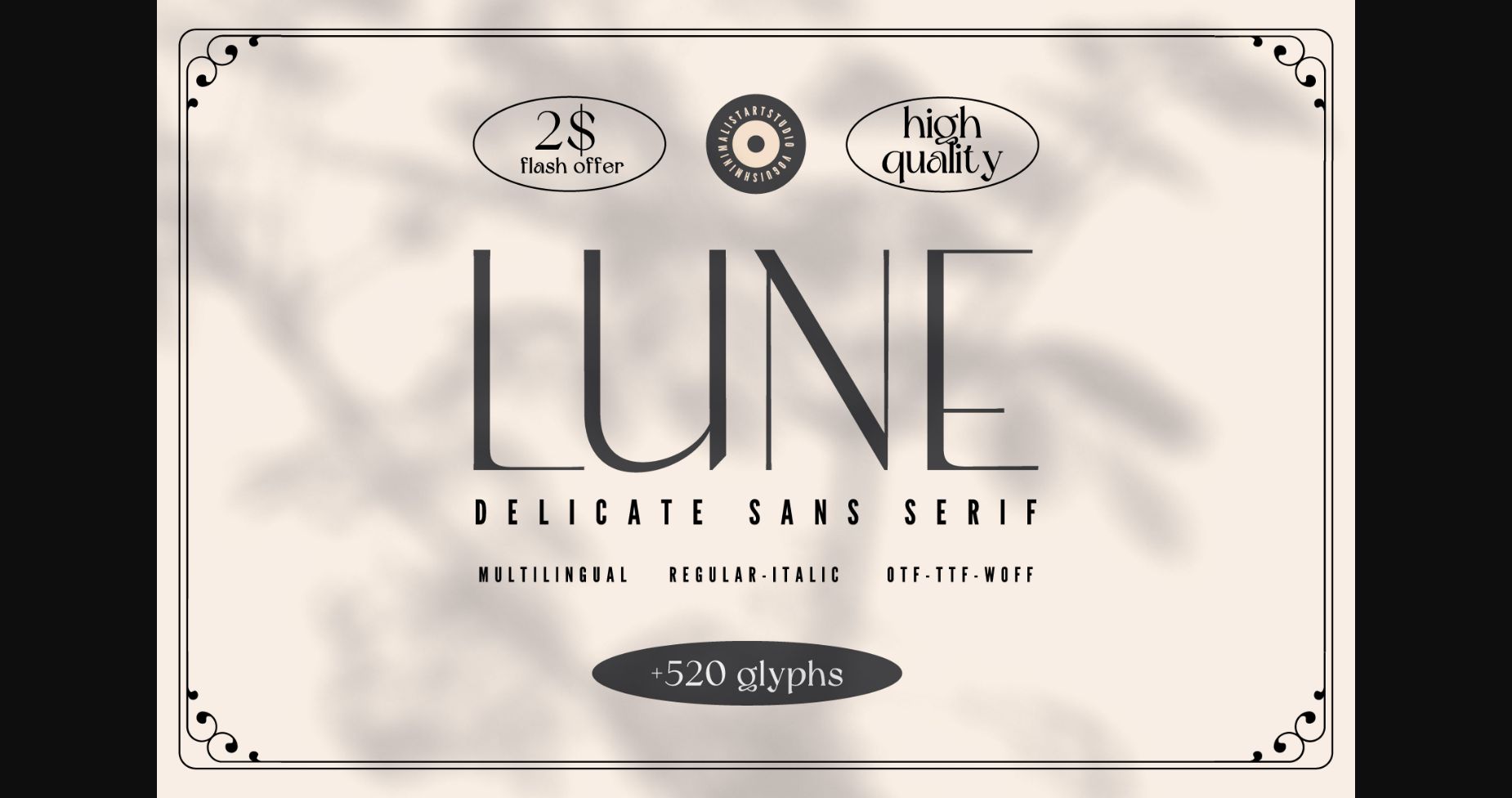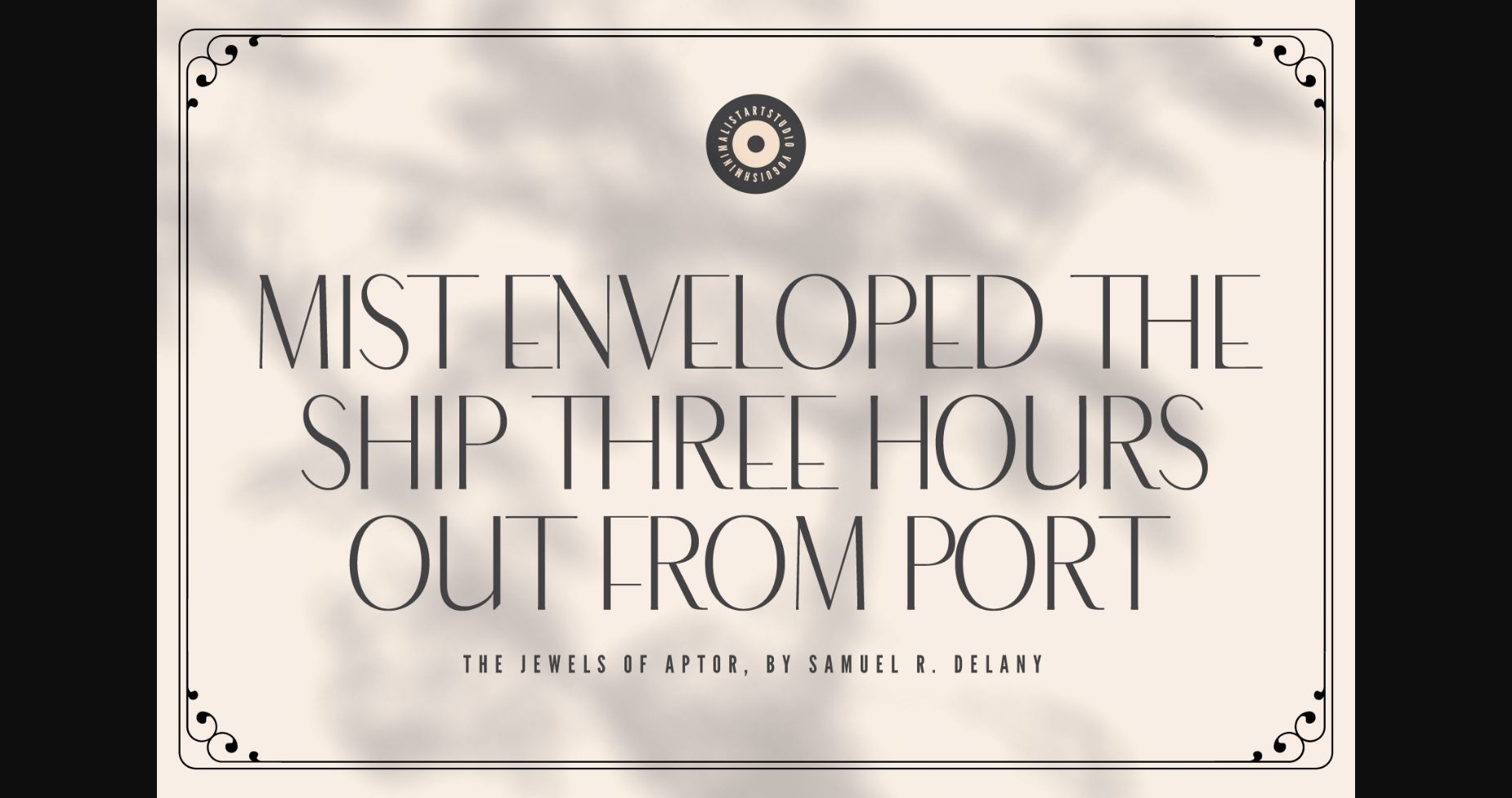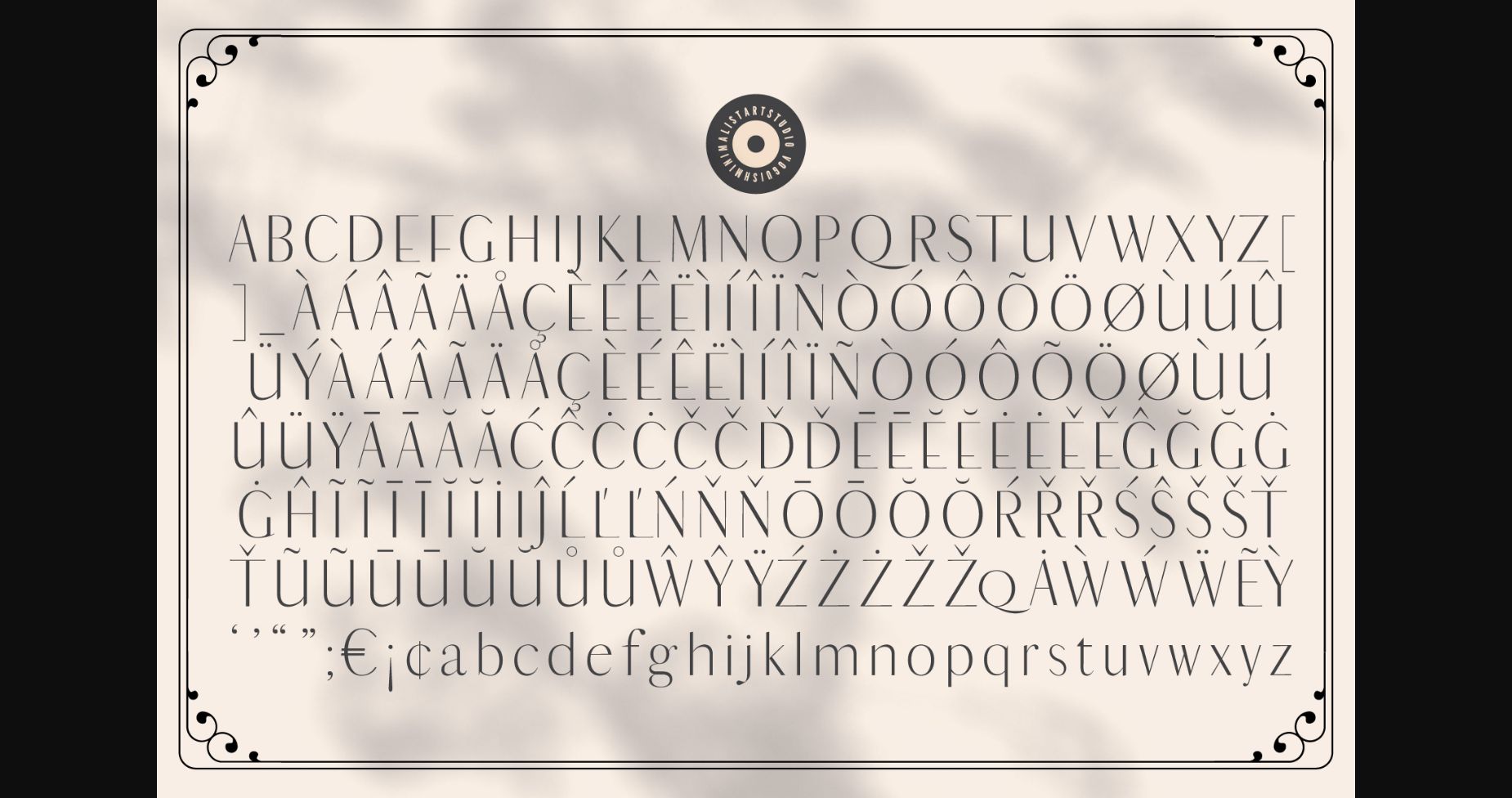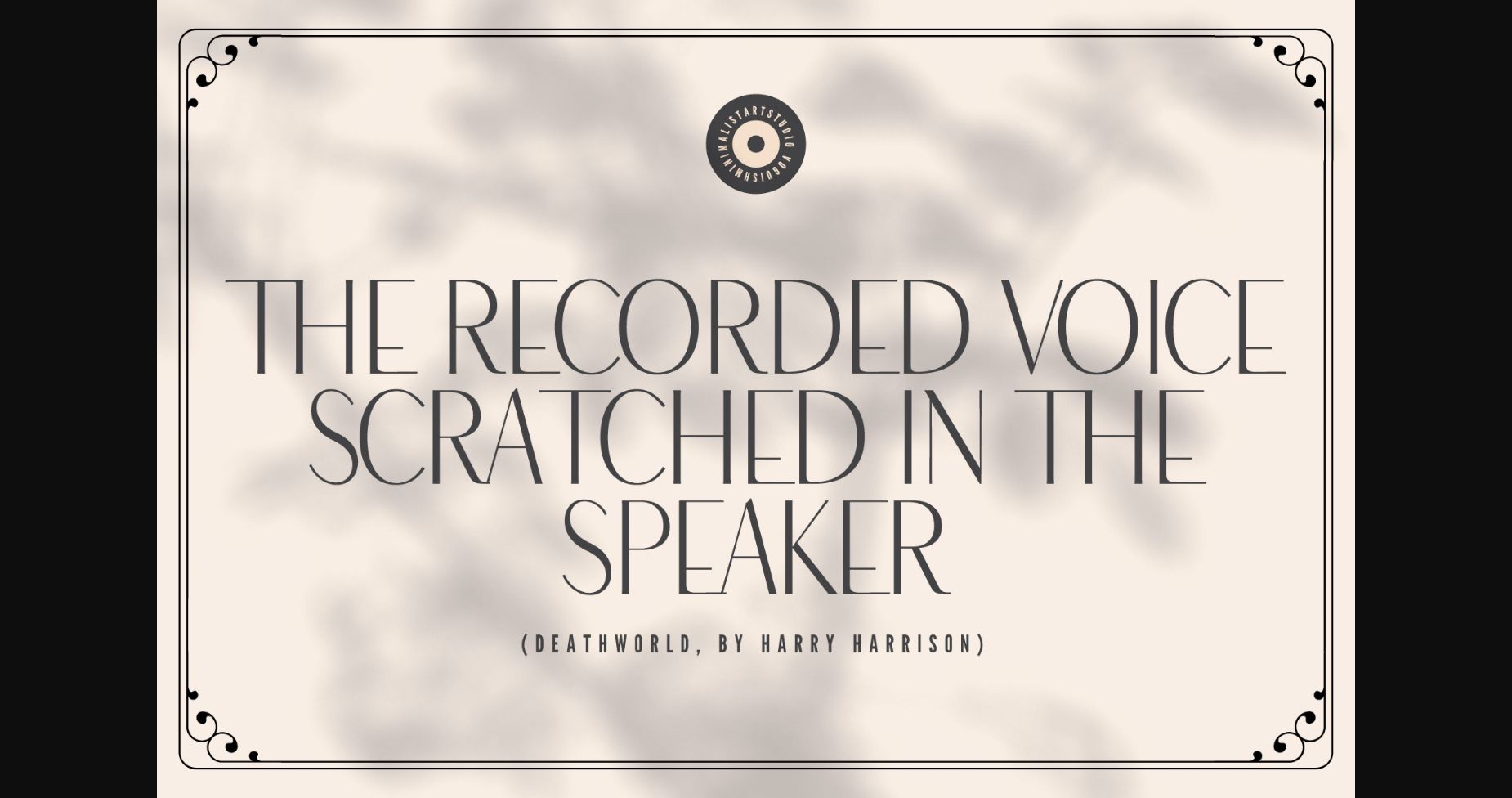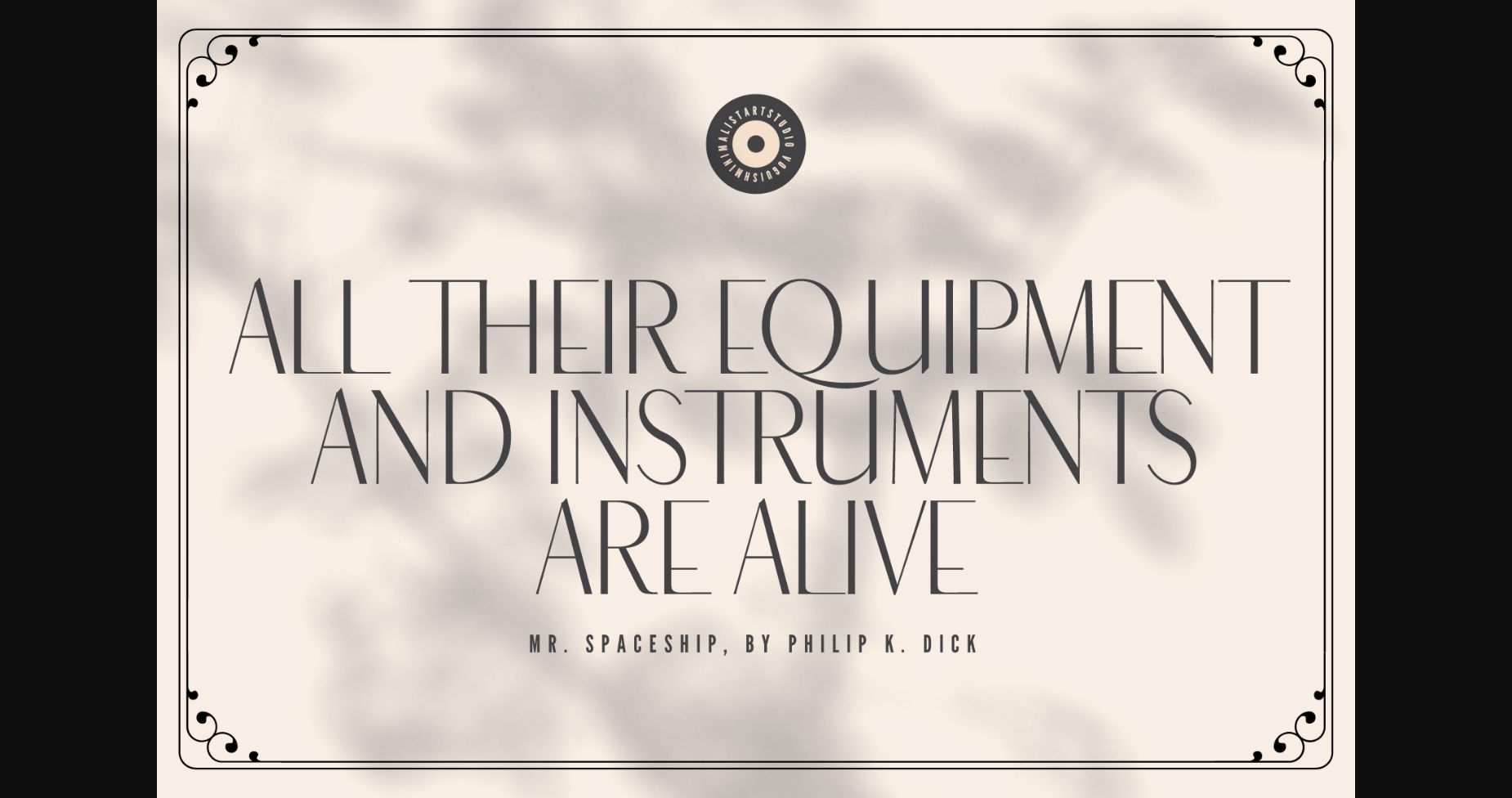
About Lune Font
Introducing Lune – a chic and sophisticated sans serif font that exudes minimalism and elegance. With its thin strokes and clean lines, Lune is perfect for a wide range of design projects, from logos and branding to editorial and web design. The font contains a comprehensive set of 520 glyphs, including uppercase and lowercase letters, numbers, symbols, and punctuation marks. Lune also comes with both regular and italic weights, giving you the flexibility to create stunning typography that suits your needs. Whether you’re designing for a high-end fashion brand or a modern tech company, Lune is the perfect font to elevate your designs and create a truly sophisticated look.